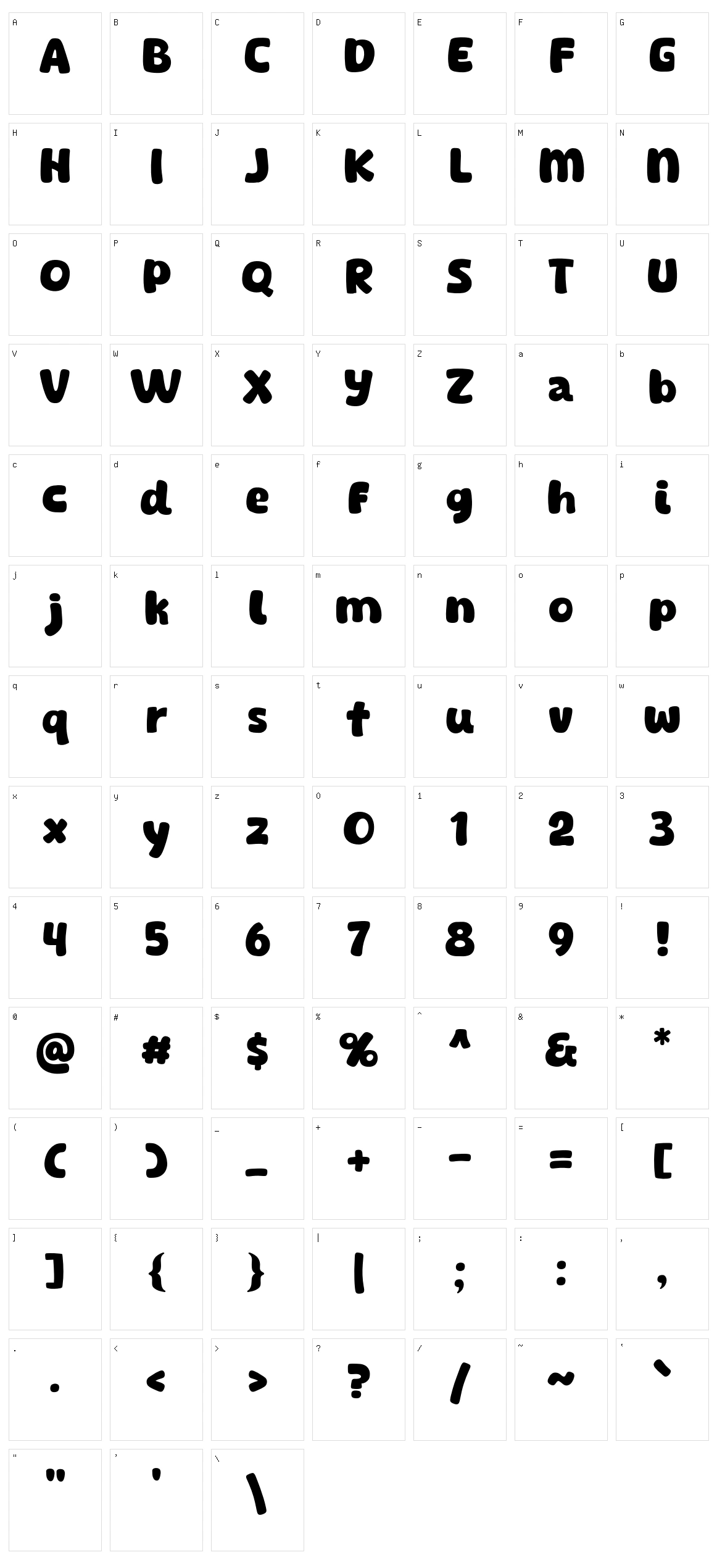
The free font The Fruit Star is carefully designed by Khurasan, showcasing a thoughtful balance of creativity and usability and falls under the Cartoon font style. When you download the ZIP file, it contains only 423.78 KB of font files, making it lightweight and quick to download. Please review the license details below to understand permitted usage and distribution rights. If license information is not available, we recommend using this font for personal projects only or contacting the author directly for commercial usage permissions.